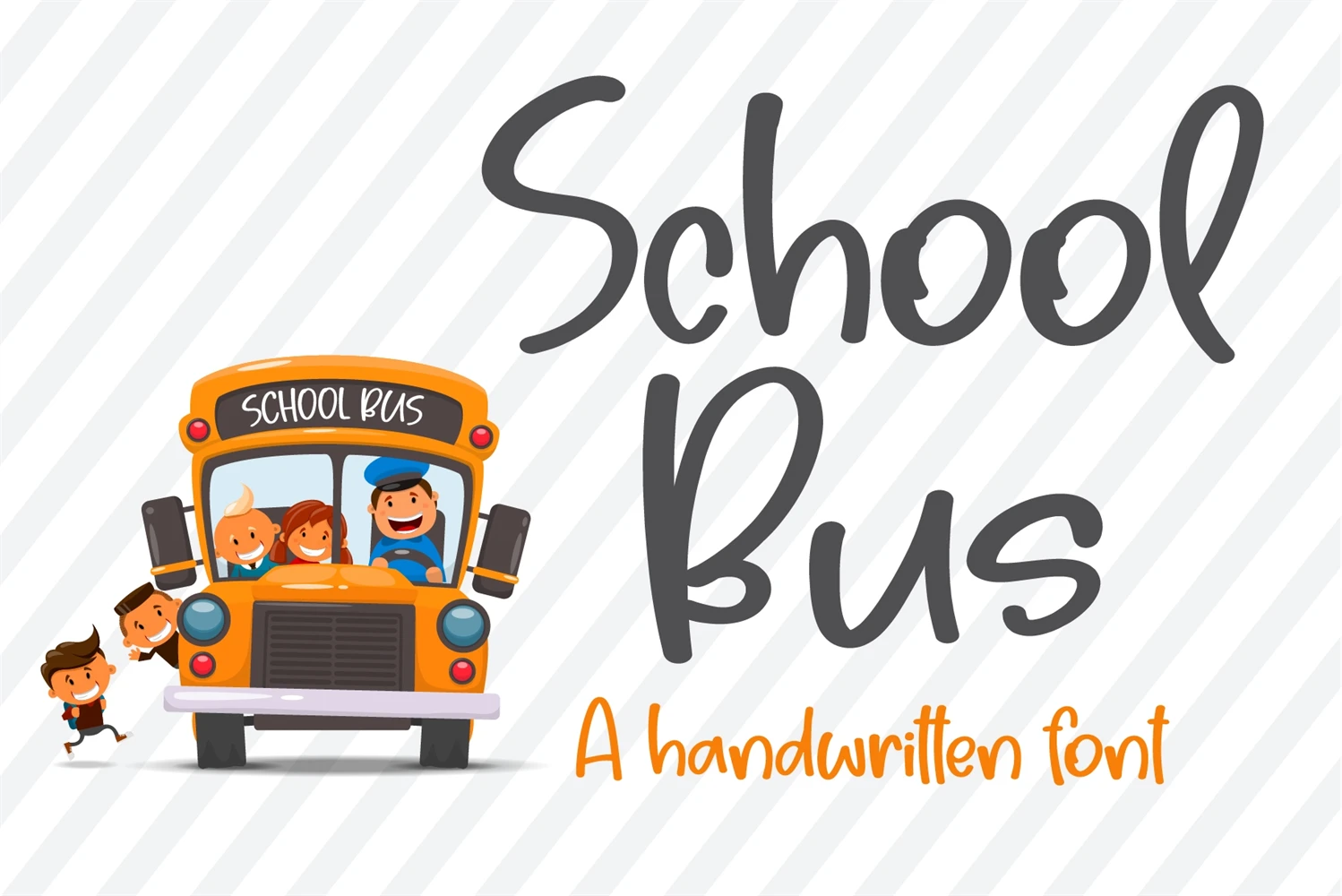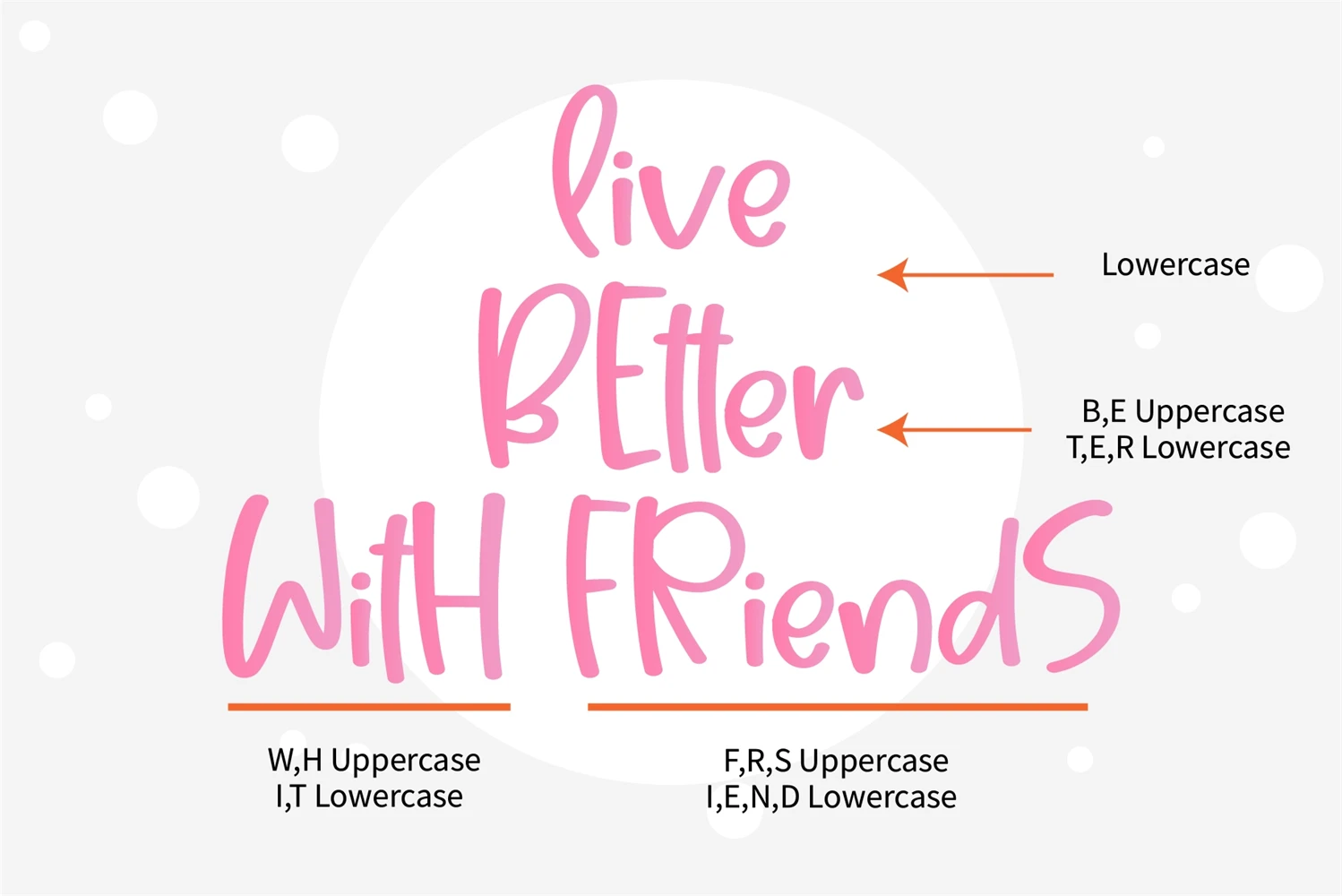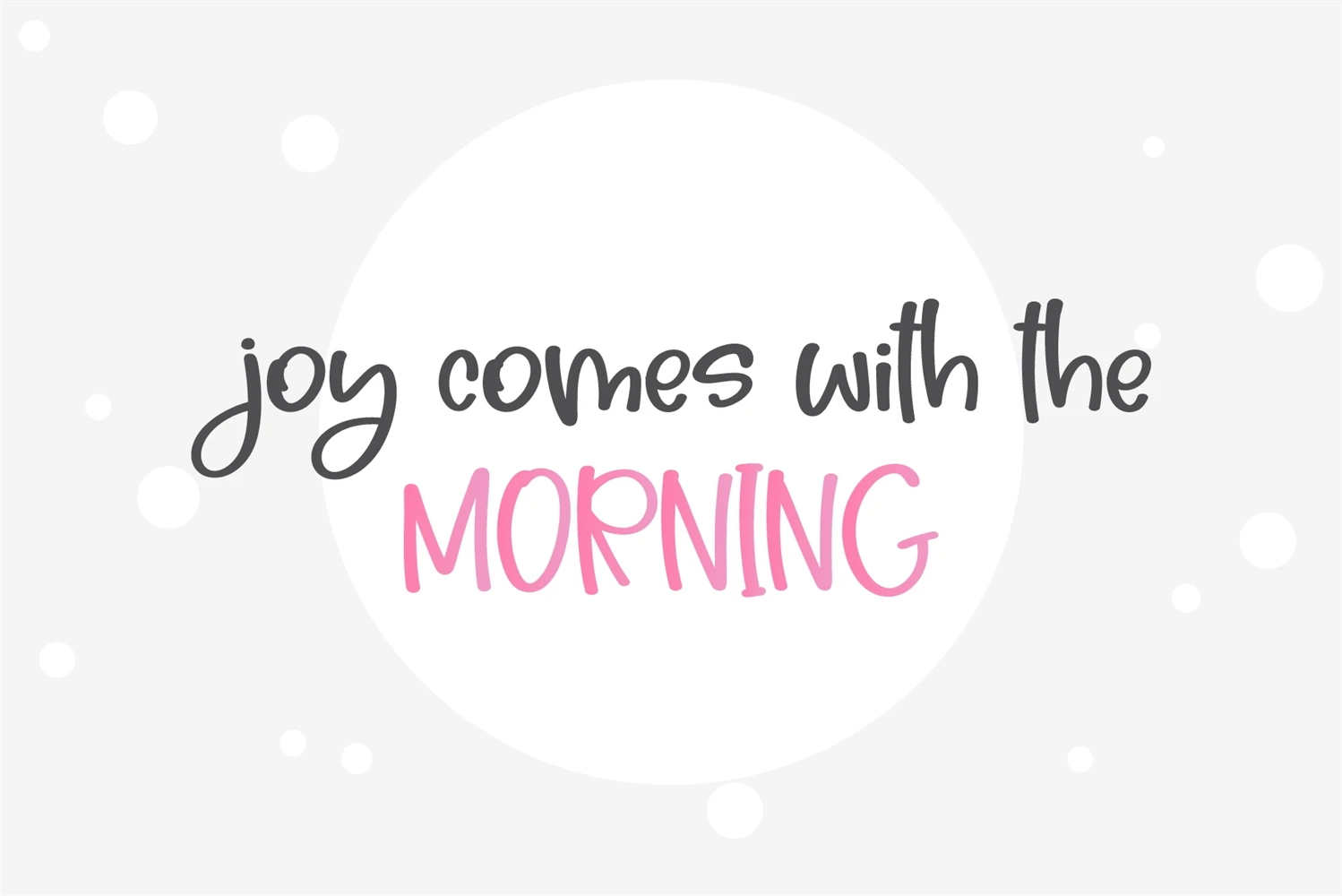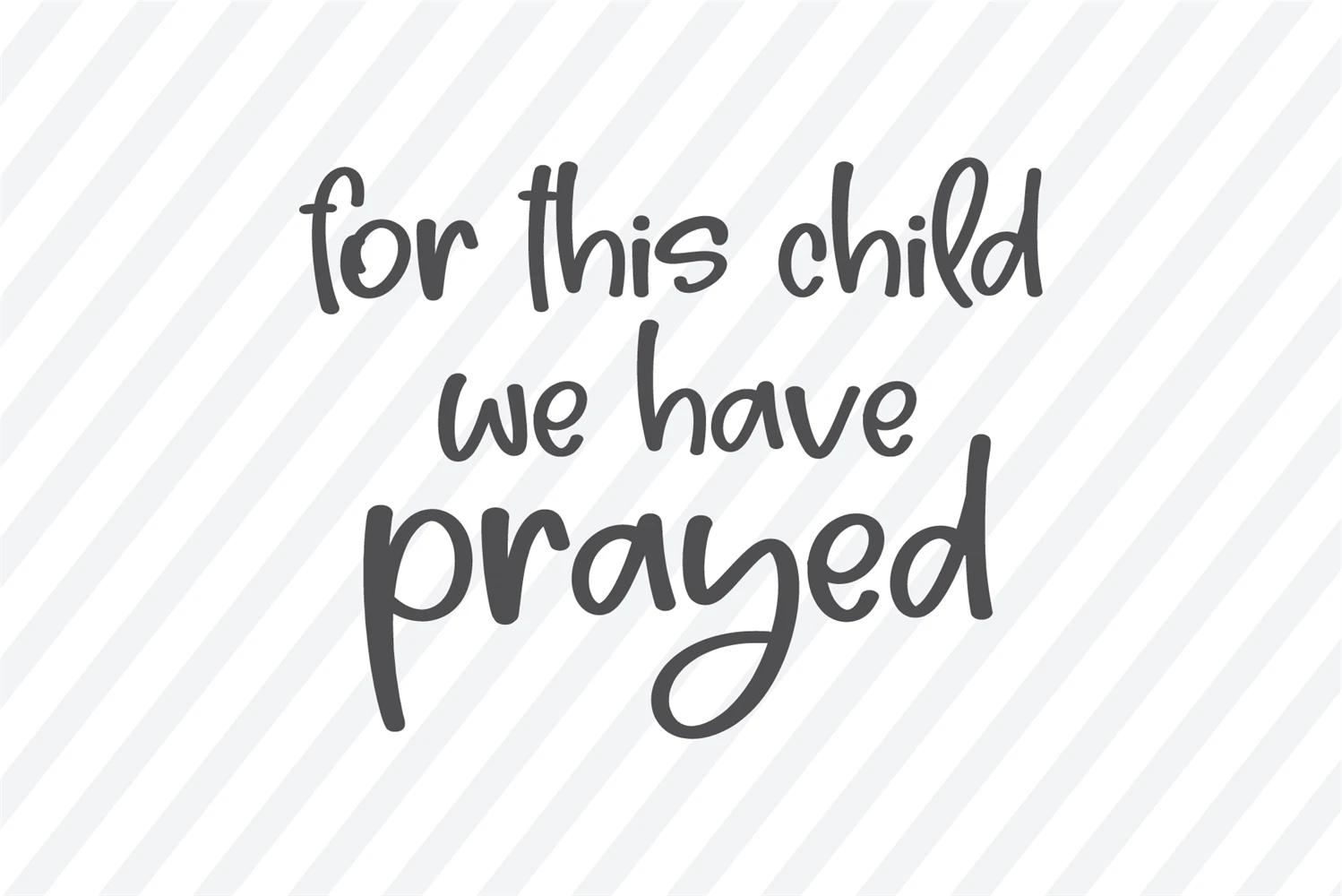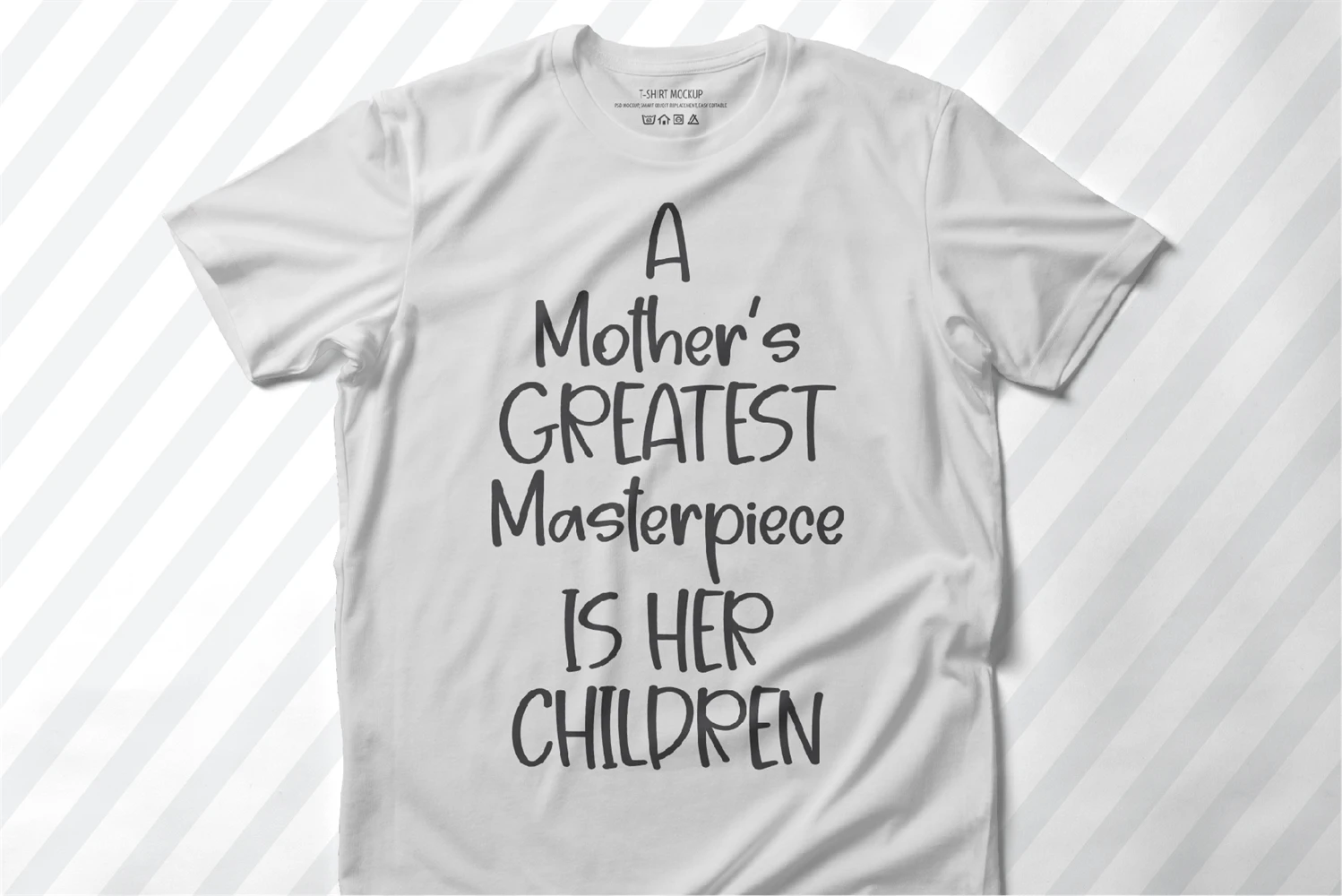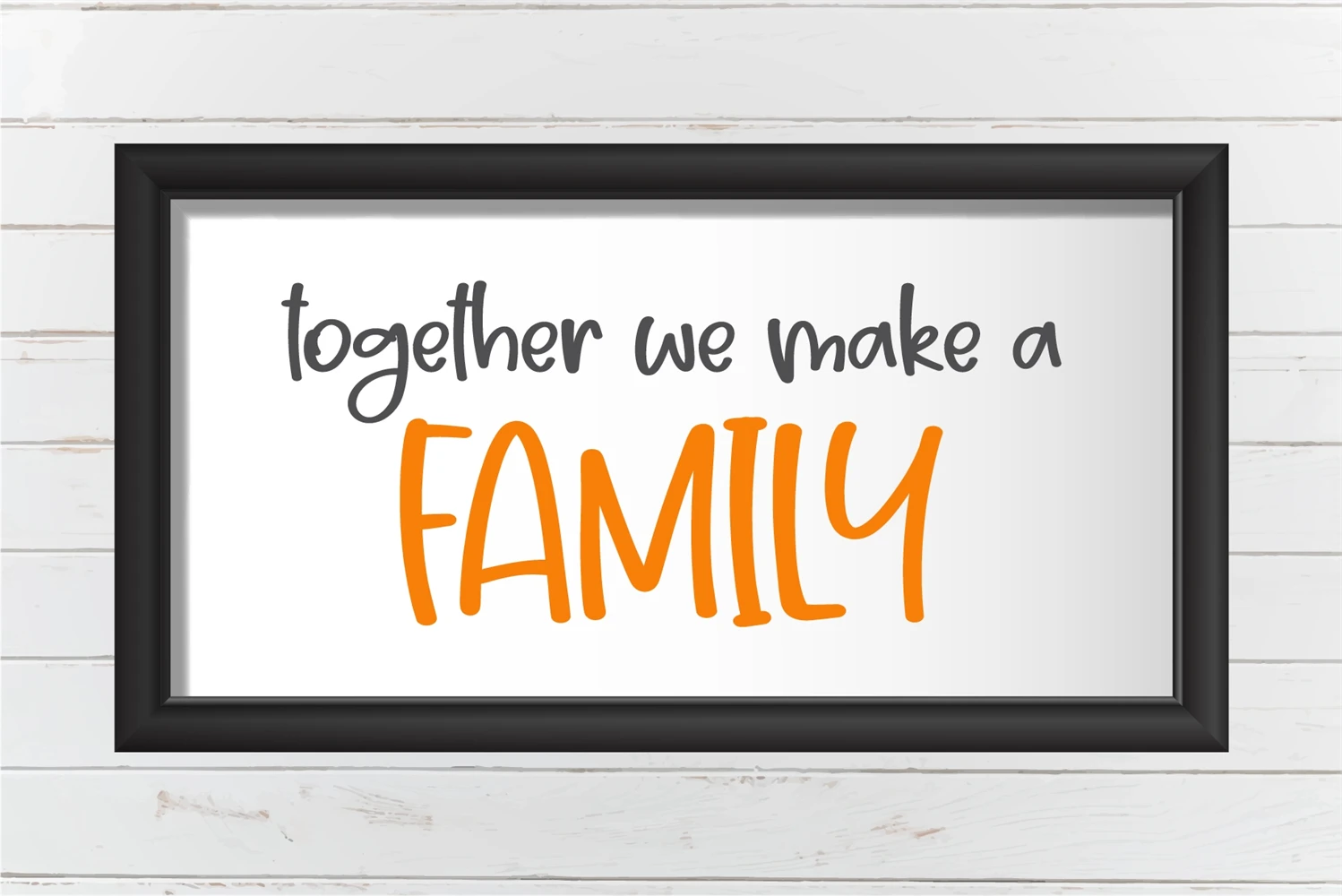
School Bus is a cool, friendly, and informal handwritten font, that can be used for all chalkboard quotes or teaching material! Its authentic look and feel will add a personal and realistic feel to each of your designs.